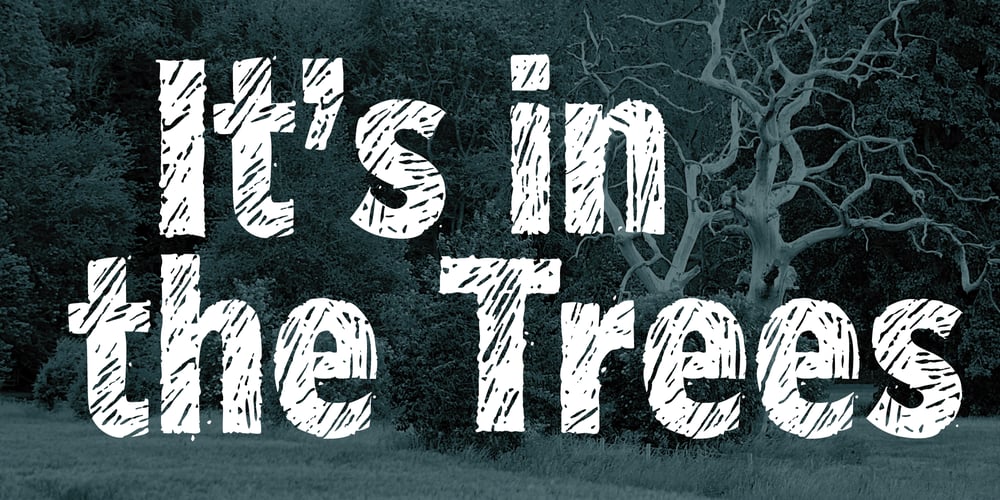
Blackwood
Blackwood font
Blackwood Font Family was designed by Alan Meeks and published by Alan Meeks. Blackwood contains 1 styles and family package options. Blackwood is a sans serif headline face with a woodgrain effect. Based loosely on Grotesk, it has strong, solid forms with distinctive style.